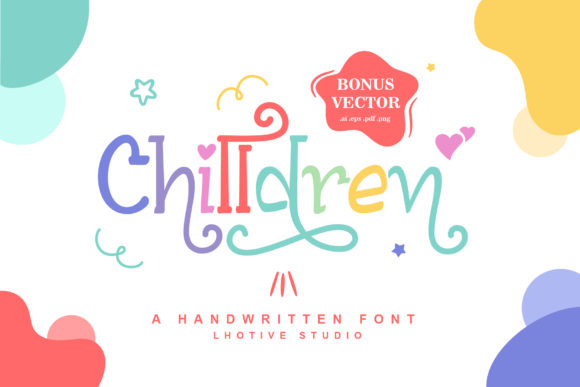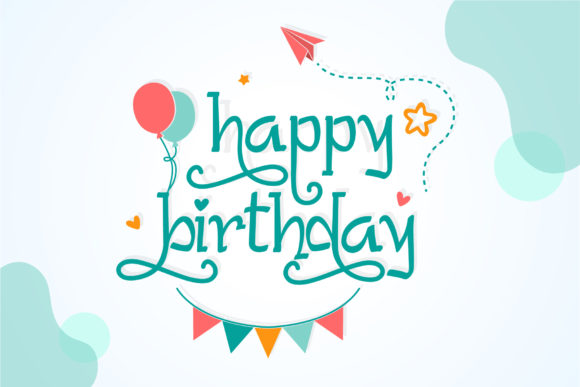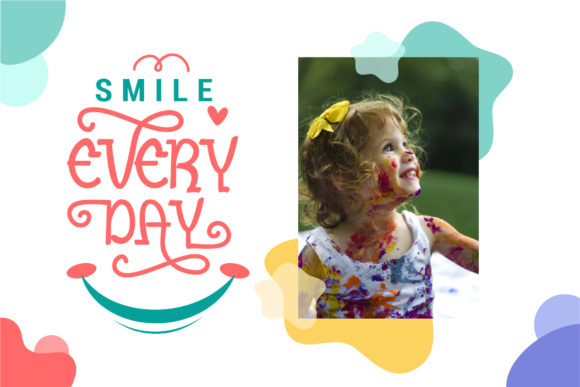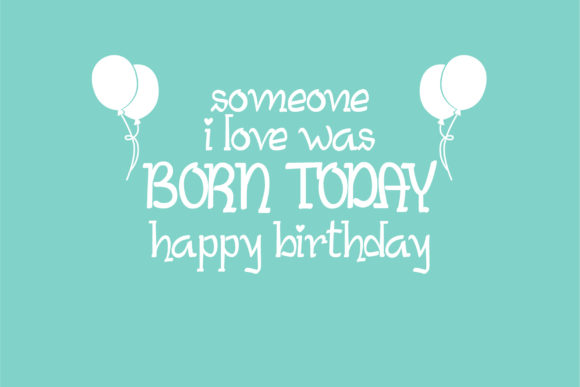
Chilldren Font
About Chilldren Font
Chilldren is cute and playful, but also elegant. This versatile script font has a wide range of applications ranging from greeting cards to headlines and is guaranteed to add a magical touch to your next design.
This font is PUA encoded which means you can access all of the gorgeous glyphs and swashes with ease! It also features a wealth of special features including alternate glyphs and ligatures.